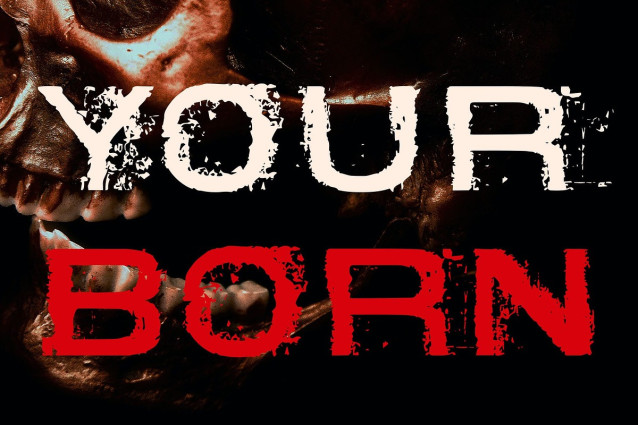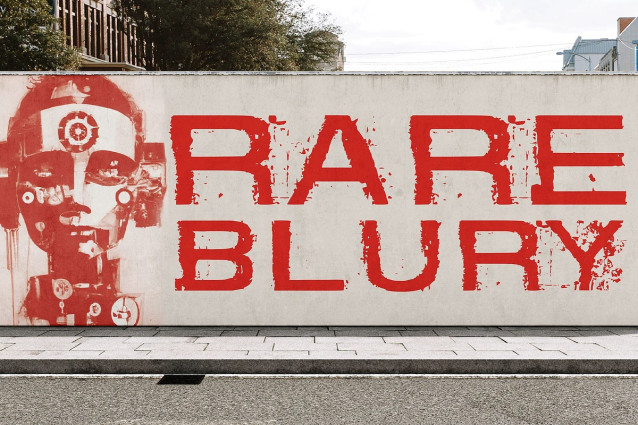
Rolide Soil Font
Rolide Soil Font is a modern sans-serif font with broad, structured letterforms that convey stability, strength, and reliability. Its expansive, well-balanced proportions ensure excellent readability while maintaining a contemporary and commanding presence. Whether for headlines, branding, or packaging, this font brings a bold, confident aesthetic to any design.
A Unique Soil Texture Effect What sets Rolide Soil apart is its rough, organic texture, inspired by natural soil patterns. This earthy, distressed effect adds depth and dimension, blending a modern industrial aesthetic with raw, organic elements.
Perfect for Branding, Posters, and Industrial Designs With its clean yet rugged look, Rolide Soil is ideal for branding, posters, packaging, and environmental design projects. Whether used in modern rustic branding or industrial-themed visuals, this font delivers a distinct, nature-inspired appeal.
A Balance of Modernity and Raw Aesthetics Rolide Soil expertly balances contemporary design with organic texture, creating a rustic yet refined aesthetic. Whether used in minimalist industrial branding or earthy, eco-conscious designs, this font adds depth, personality, and a tactile feel. Its distinctive blend of strength and organic texture makes it a go-to choice for designers looking for a unique, impactful, and naturally inspired font.